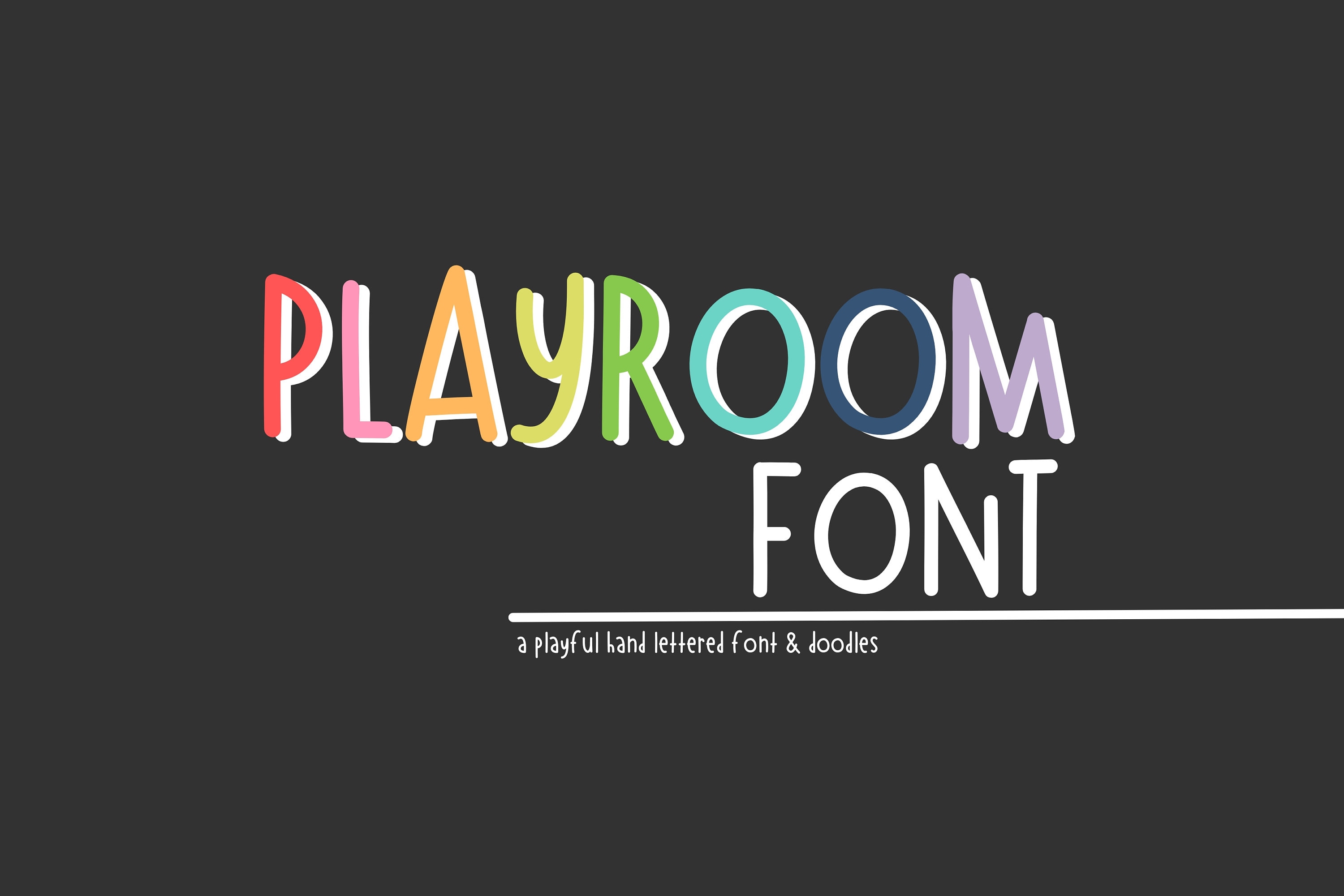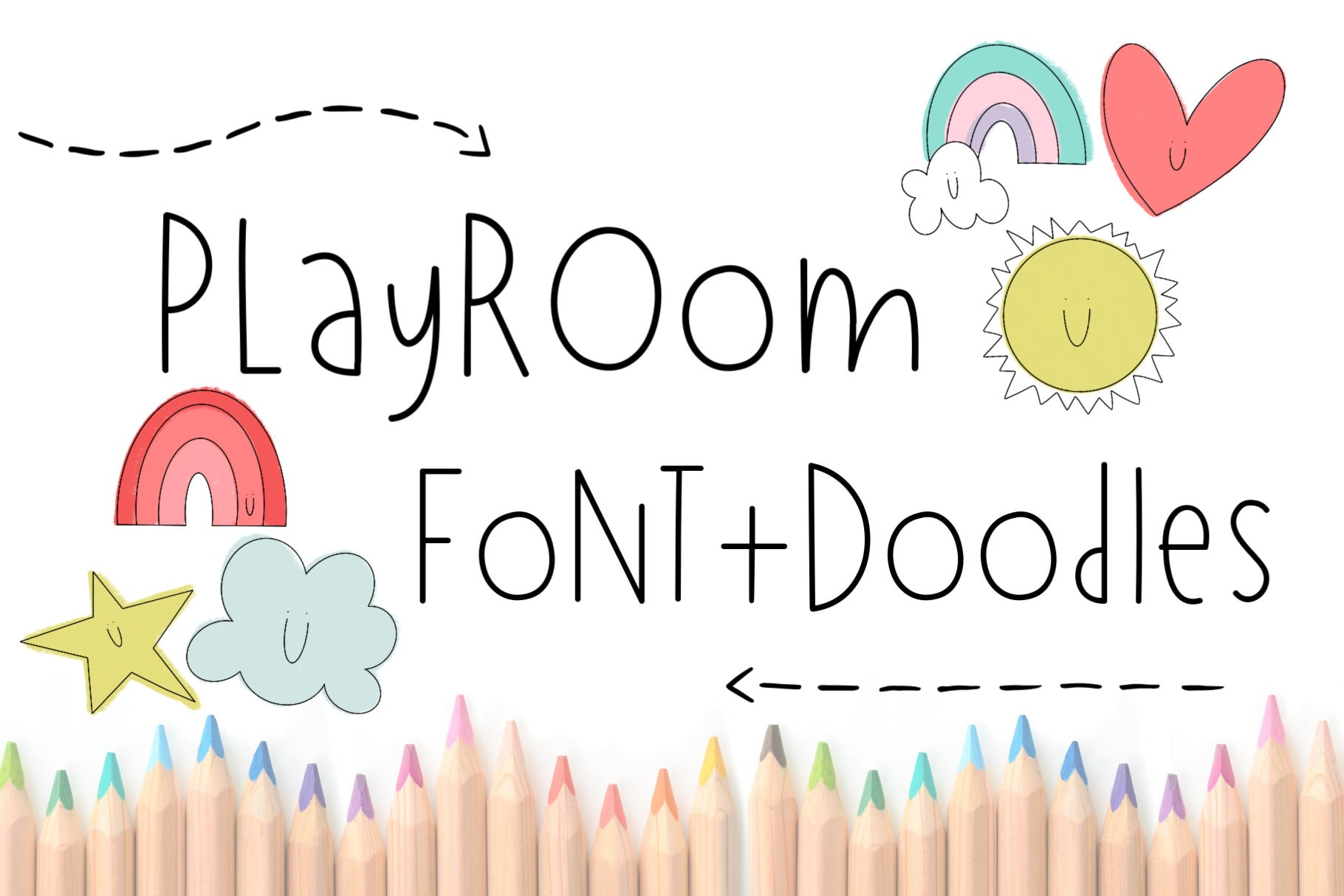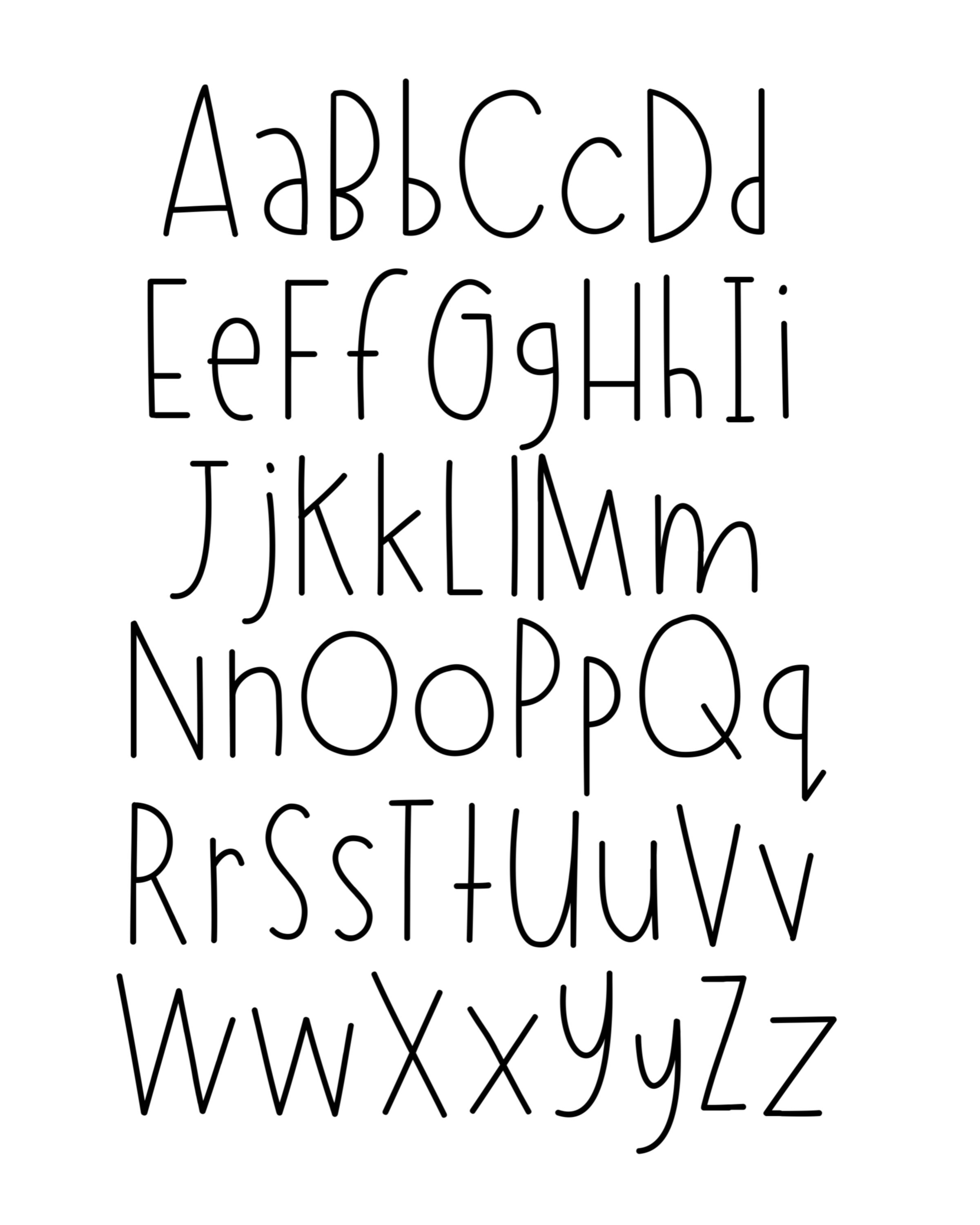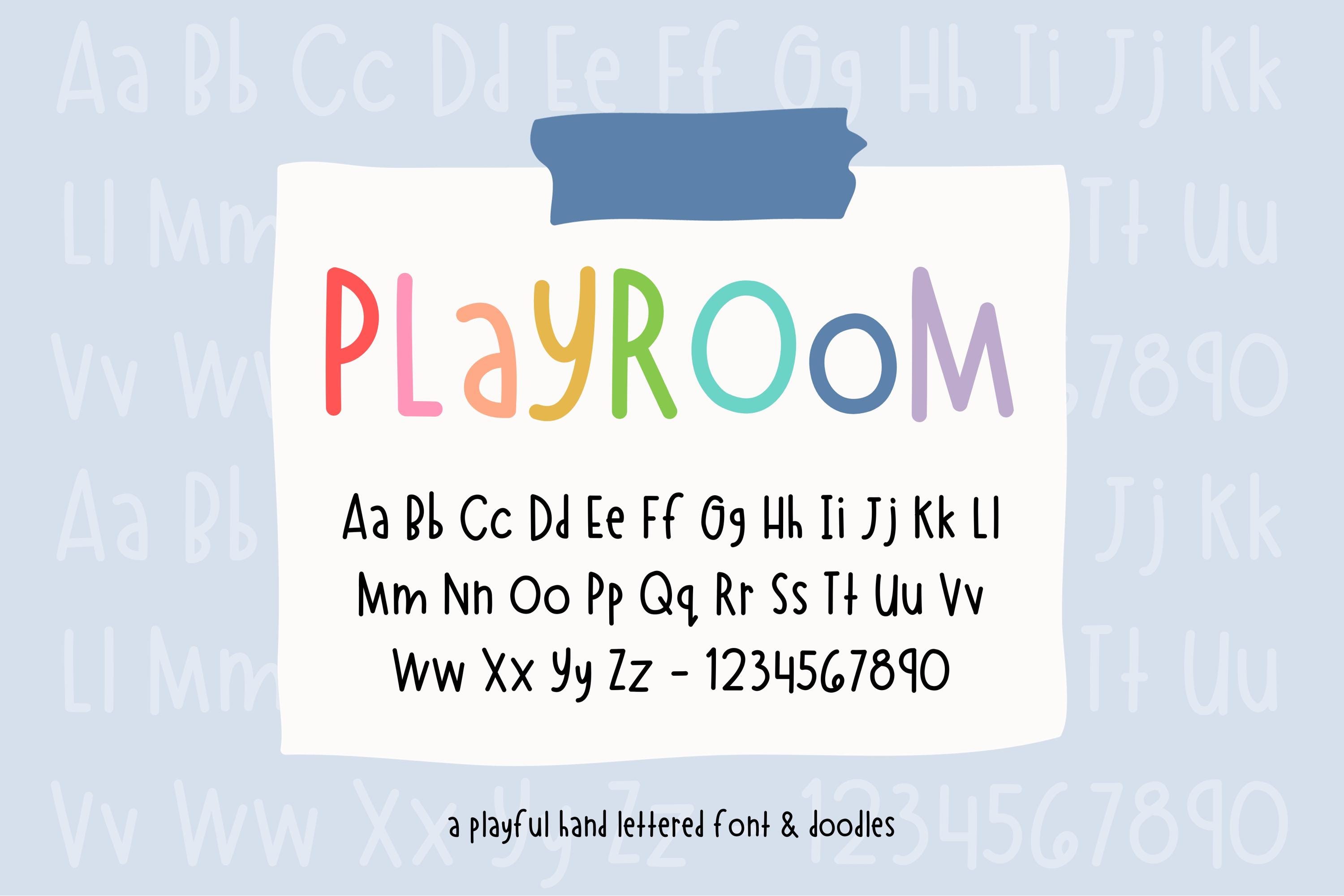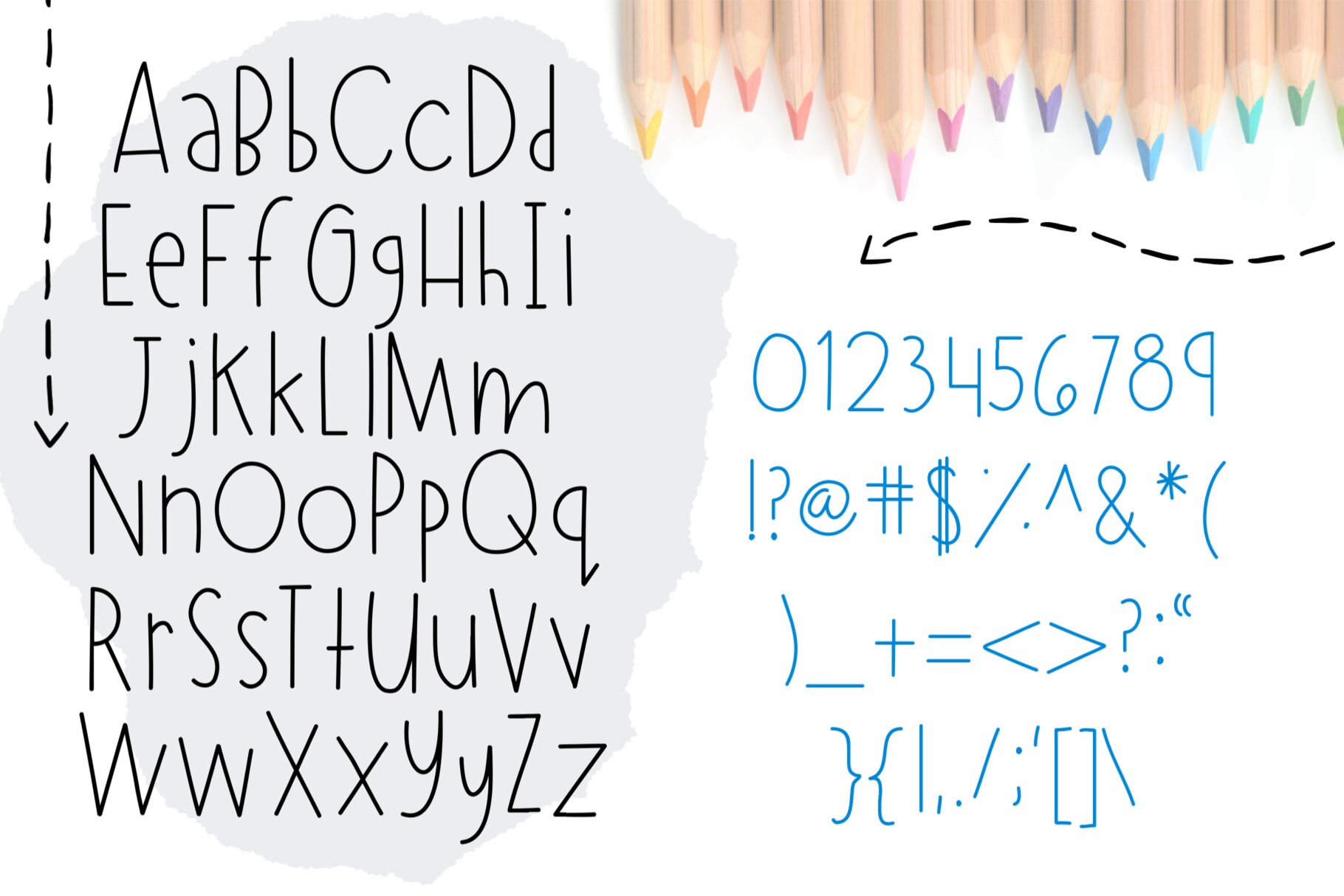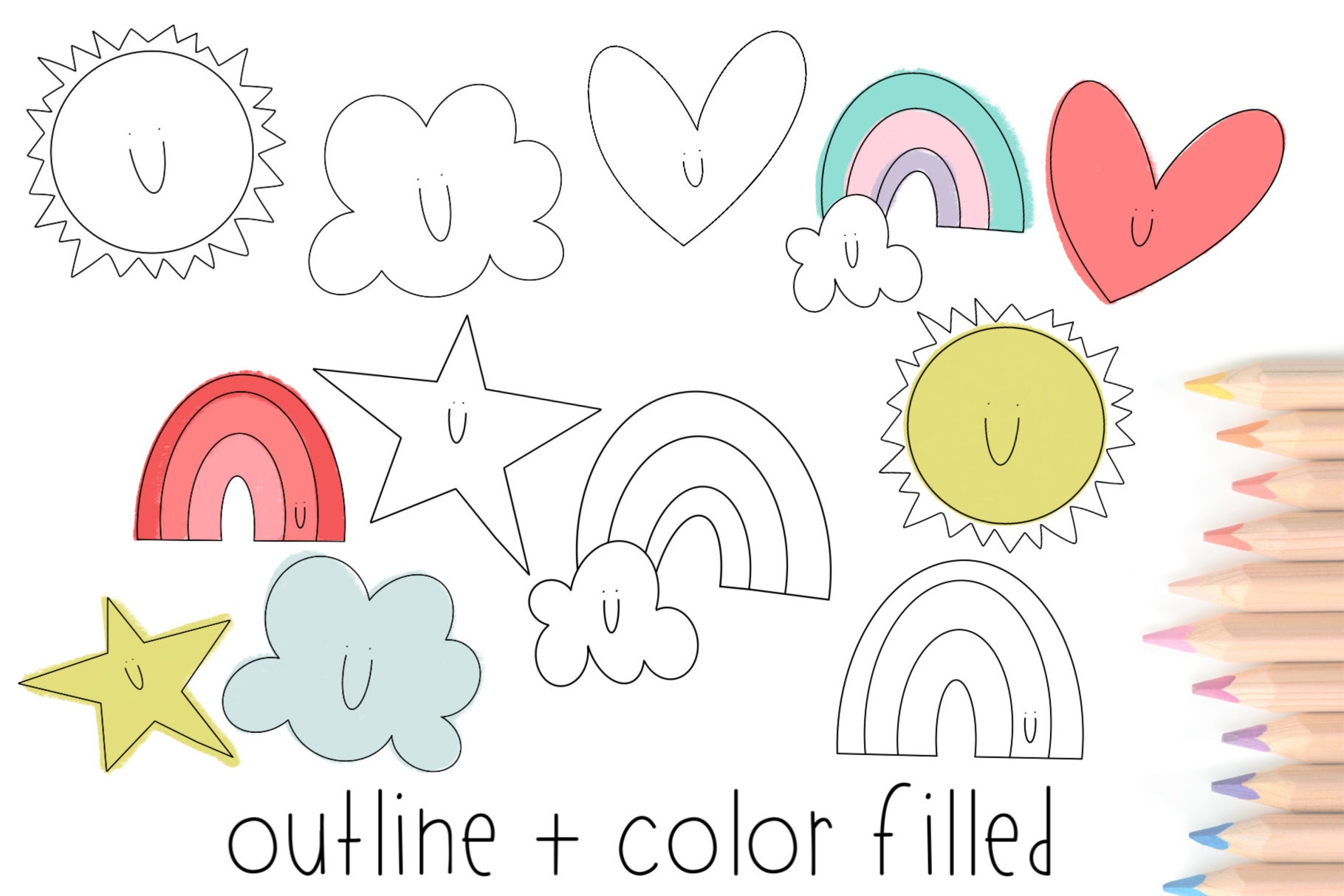
You will get this adorable FONT and DOODLES. Playroom hand lettered font for your fun future projects!
Full Alphabet, Numbers & Symbols.
PNG Doodles: outlined and colored.